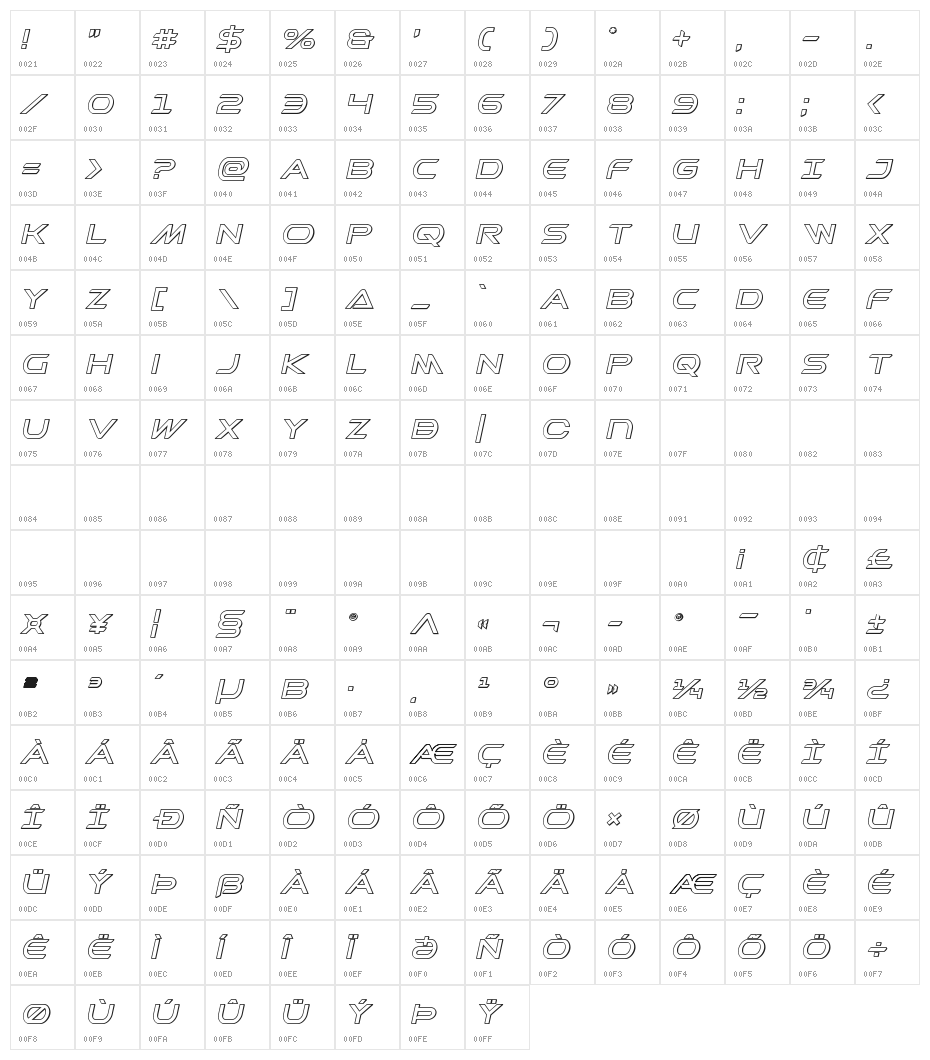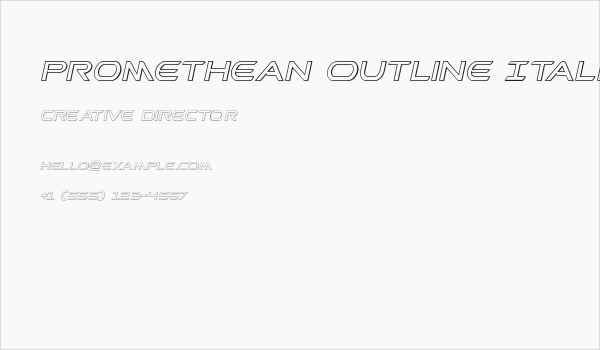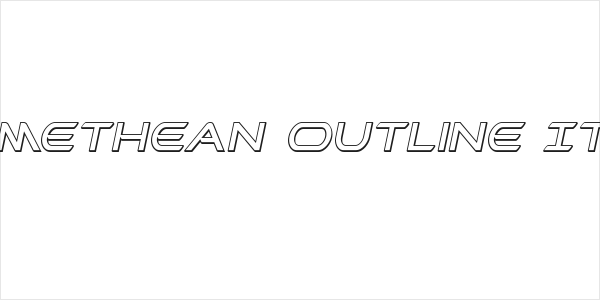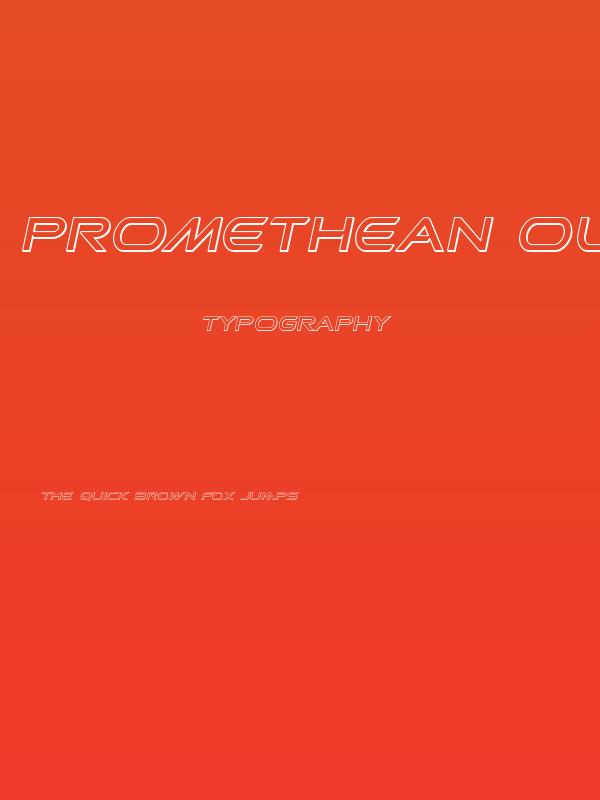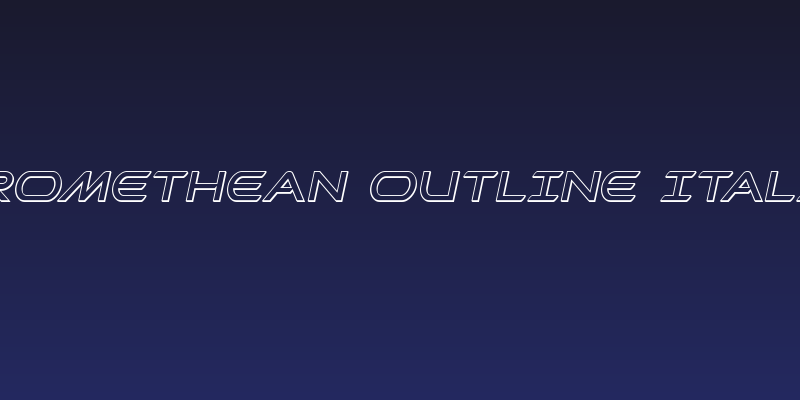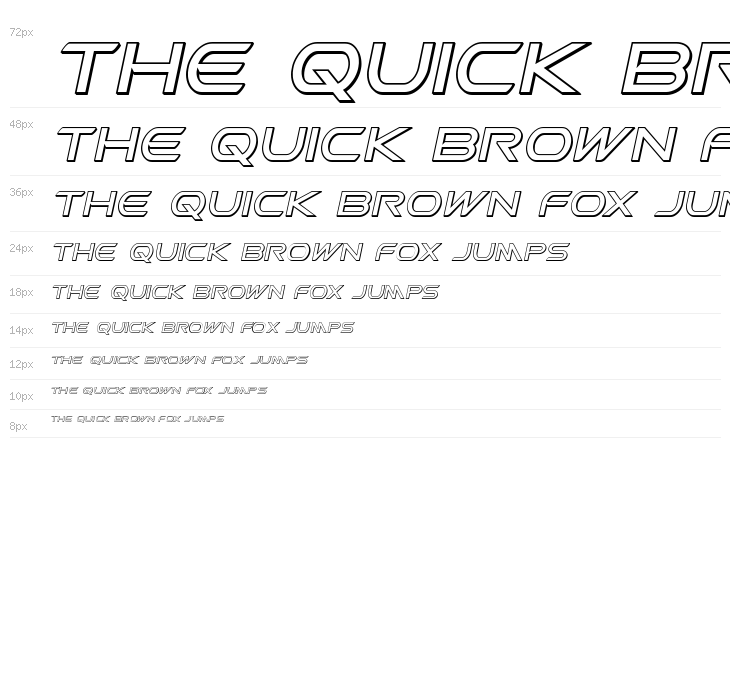
Promethean Outline Italic Font
Promethean Outline Italic Description
This font features a sleek, modern outline style with italicized characters that convey a sense of motion and dynamism. The uppercase and lowercase letters are designed with precision, offering a futuristic and technical appearance. The numbers and special characters maintain the same outlined aesthetic, ensuring consistency across all glyphs. The font's clean lines and geometric shapes make it suitable for projects that require a contemporary and innovative look.